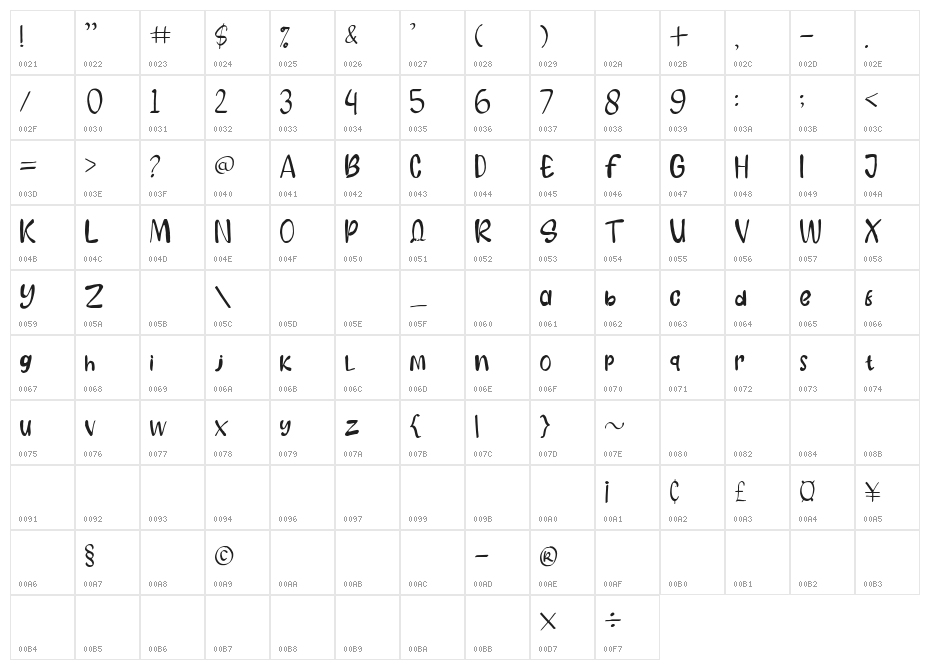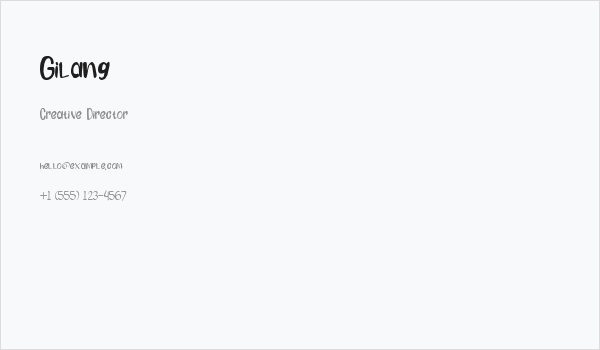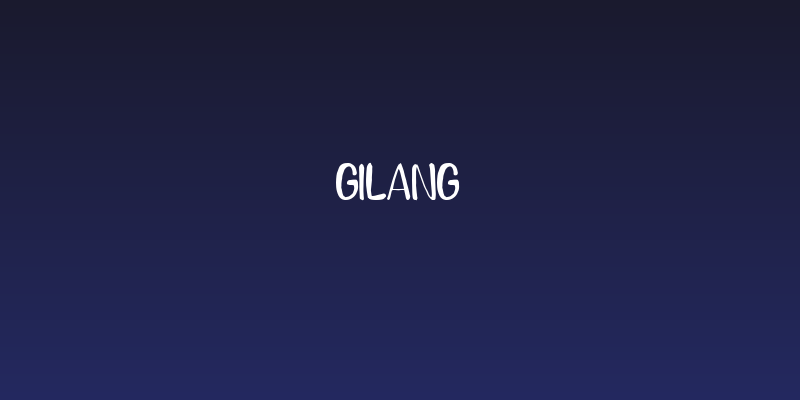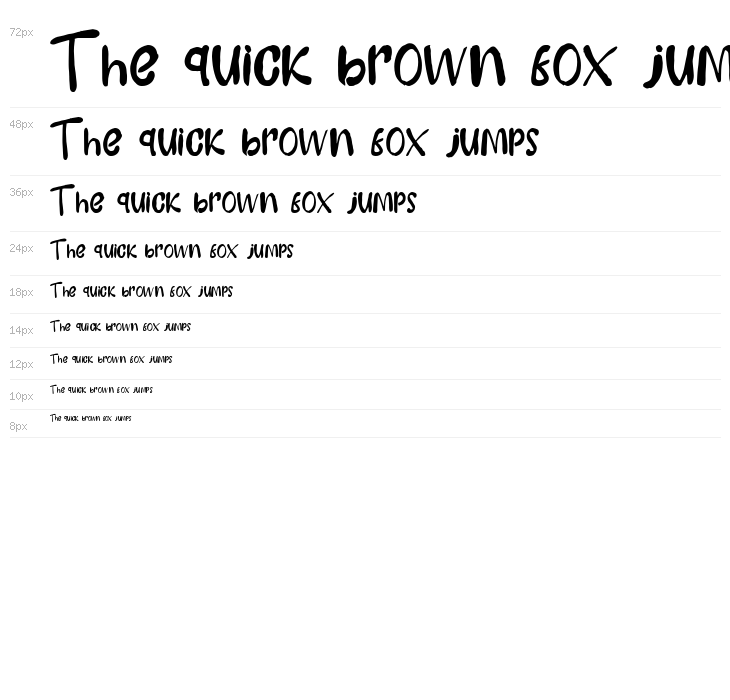
Gilang Font
Gilang Description
This font features a playful and dynamic handwritten style, characterized by its bold and expressive strokes. The letters are slightly irregular, giving it a casual and informal appearance. The uppercase and lowercase letters maintain a consistent flow, while the numbers and special characters complement the overall aesthetic. The font's unique charm lies in its ability to convey a sense of creativity and spontaneity, making it ideal for projects that require a personal touch. Its boldness ensures readability, while the organic shapes add a touch of whimsy.
| Overall Style | Playful, Creative |
| Proposed Projects | Ideal for greeting cards, children's books, creative posters, and branding that requires a personal touch. |